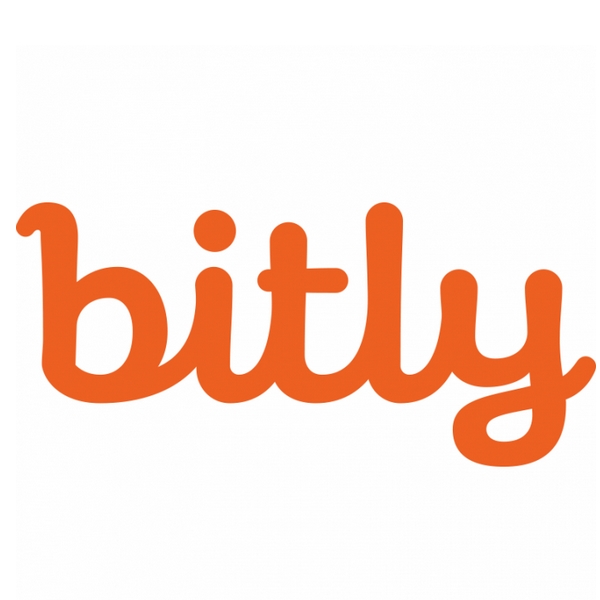
Bitly Font
Fonts in UseBitly is a URL shortening and link management platform that allows users to shorten, track, and share links. It is widely used for social media, digital marketing, and analytics purposes.
The Bitly logo most likely employs the Galaxie Cassiopeia font created by Chester Jenkins, which offers two variations: Cassiopeia basic with non-joining letters and Cassiopeia regular with natural letter-to-letter connections. Additional information can be found here.